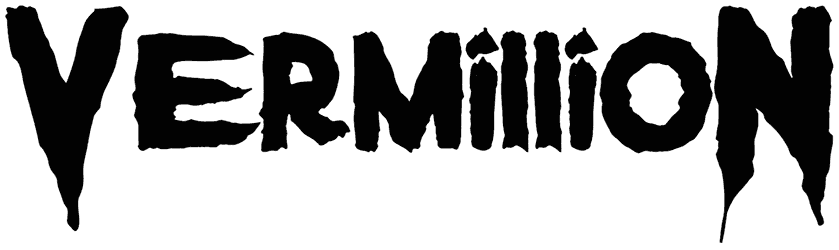
Vermillion Font
If you are trying to design a threatening text, don’t pass this vampire font with a paranormal vibe. Vermillion can bring an exciting and stressful mood to your projects, such as scary illustrations, vampire movies, or any design you are decorating. Vermillion can present strongly with two different sets of uppercase letters, even without the help of lowercase letters.